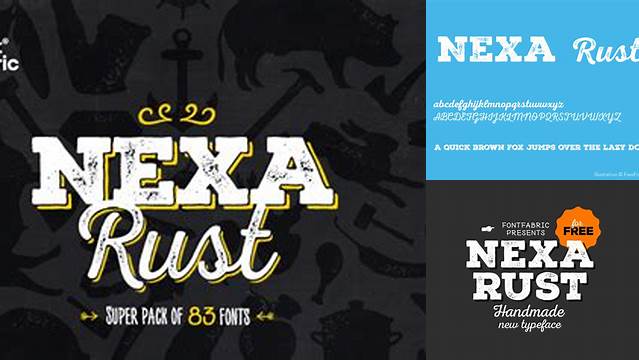
Nexa Rust Script: Free Font Download
Hey guys! Looking for a cool, vintage-style font to spice up your designs? You've come to the right place! Let's dive into the world of Nexa Rust Script, a fantastic font that can give your projects that perfect handcrafted touch. This article will explore everything you need to know about Nexa Rust Script, including where to find it, how to use it, and why it's such a popular choice for designers.
What is Nexa Rust Script?
Nexa Rust Script is more than just a font; it's a whole family of fonts designed to work together seamlessly. It's known for its vintage, handcrafted feel, making it perfect for logos, posters, branding, and a ton of other creative projects. The beauty of Nexa Rust Script lies in its versatility. Whether you're going for a rustic, industrial vibe or a more elegant, vintage look, this font can deliver. It’s a go-to choice for designers who want to add a touch of authenticity and personality to their work. The slightly rough edges and varied letterforms give it a natural, hand-drawn appearance that stands out from the clean, geometric fonts we often see today.
1. Nexa Rust Script: A Detailed Overview
Let's kick things off with a detailed look at Nexa Rust Script. This font family is not just one style; it’s a comprehensive collection that includes various weights and styles, from regular to bold, and even includes some unique extras like shadow and inline versions. This means you have a wide range of options to choose from, allowing you to create diverse designs with a consistent aesthetic. The attention to detail in Nexa Rust Script is what sets it apart. Each letter has been carefully crafted to ensure it fits perfectly within the overall design, and the subtle variations in stroke width and texture add to its handcrafted charm. Whether you're working on a logo, a poster, or a website, Nexa Rust Script can help you achieve a distinctive and memorable look.
3. Using Nexa Rust Script in Graphic Design Projects
So, you've got your hands on Nexa Rust Script – now what? This font is incredibly versatile, making it a great choice for a wide range of graphic design projects. Think logos, branding materials, posters, packaging, and even web design. The key is to use it strategically. For example, Nexa Rust Script can add a touch of vintage charm to a logo, making it stand out from the crowd. In posters, it can create a bold and eye-catching headline. When it comes to branding, using Nexa Rust Script consistently across your materials can help establish a unique and memorable identity. Experiment with different weights and styles within the family to create visual hierarchy and add interest to your designs. Don’t be afraid to pair Nexa Rust Script with other fonts to achieve a balanced and harmonious look. Sans-serif fonts often complement the script style nicely, providing a clean and modern contrast.
4. Nexa Rust Script for Logos and Branding
When it comes to logos and branding, Nexa Rust Script can be a real game-changer. Its unique, handcrafted aesthetic can help your brand stand out and make a lasting impression. Imagine a coffee shop logo with a rustic, vintage feel – Nexa Rust Script would be perfect for this! The font's personality can convey a sense of authenticity and quality, which is crucial for building trust with your audience. In branding materials, Nexa Rust Script can be used for headlines, taglines, and even body text, depending on the overall design. Just be mindful of readability, especially when using it for smaller text sizes. Consider using different weights and styles from the Nexa Rust Script family to create a cohesive and visually appealing brand identity. For instance, you might use the bold version for your logo and the regular version for supporting text. Pairing Nexa Rust Script with a clean, modern sans-serif font can also create a balanced and professional look.
5. Creating Vintage Designs with Nexa Rust Script
If you're aiming for a vintage design, Nexa Rust Script is your new best friend. Its slightly rough edges and textured appearance perfectly capture the essence of vintage typography. Think old-school posters, retro advertisements, and classic signage – Nexa Rust Script fits right in. To enhance the vintage feel, try pairing it with other design elements like distressed textures, muted colors, and vintage illustrations. Experiment with different styles within the Nexa Rust Script family to add depth and variation to your designs. For example, you might use the shadow version to create a 3D effect or the inline version for a more subtle vintage touch. Don’t be afraid to mix and match different styles to achieve the desired look. Remember, the key to a successful vintage design is to create a sense of nostalgia and authenticity, and Nexa Rust Script can help you do just that.
6. Nexa Rust Script: Font Pairing Suggestions
Font pairing can be tricky, but when done right, it can elevate your designs to the next level. With Nexa Rust Script, the key is to find fonts that complement its unique personality without overshadowing it. Generally, clean and simple sans-serif fonts work well with script fonts like Nexa Rust Script. Think fonts like Open Sans, Montserrat, or Lato. These fonts provide a nice contrast and ensure readability, especially in body text. Another approach is to pair Nexa Rust Script with a more traditional serif font for a classic and elegant look. Fonts like Garamond or Times New Roman can create a sophisticated contrast. Experiment with different font weights and sizes to create a visual hierarchy and ensure a balanced design. Remember, the goal is to create a harmonious combination that enhances the overall message and aesthetic of your design. Don’t be afraid to try out different pairings and see what works best for your specific project.
7. Exploring the Nexa Rust Font Family
The Nexa Rust Script font family is a treasure trove of typographic possibilities. It's not just one font; it's a whole collection of styles and weights designed to work together seamlessly. This versatility makes it an excellent choice for projects that require a consistent yet varied aesthetic. Within the family, you'll find regular, bold, and even unique styles like shadow and inline versions. Each style has its own distinct character, allowing you to create diverse designs with a cohesive look. The regular weight is perfect for body text and smaller details, while the bold weight is ideal for headlines and eye-catching elements. The shadow and inline versions can add a touch of flair and visual interest. Take the time to explore the full Nexa Rust Script family and experiment with different combinations to unlock its full potential. Understanding the nuances of each style will help you make informed design choices and create impactful visuals.
8. Nexa Rust Script vs. Other Script Fonts
In the world of script fonts, Nexa Rust Script stands out for its unique blend of vintage charm and modern versatility. But how does it compare to other script fonts out there? Many script fonts lean towards either a formal, elegant style or a playful, casual style. Nexa Rust Script strikes a balance between these two, making it suitable for a wide range of projects. Its slightly rough edges and textured appearance give it a handcrafted feel that sets it apart from smoother, more polished script fonts. Compared to more traditional script fonts, Nexa Rust Script has a contemporary edge, making it a great choice for modern designs with a vintage twist. When choosing a script font, consider the overall tone and message of your project. If you're looking for a font that's both stylish and versatile, Nexa Rust Script is definitely worth considering. Its unique personality and extensive family of styles make it a valuable addition to any designer's toolkit.
9. Designing Posters with Nexa Rust Script
Posters are a fantastic canvas for showcasing the personality of Nexa Rust Script. Its bold and eye-catching nature makes it perfect for creating posters that grab attention and leave a lasting impression. When designing posters with Nexa Rust Script, think about how you can use its unique characteristics to enhance your message. The font's vintage feel can add a touch of nostalgia and authenticity to your design, while its modern edge ensures it doesn't feel outdated. Consider using the bold weight for headlines to make a strong statement, and the regular weight for supporting text to maintain readability. Experiment with different layouts and compositions to create a visually dynamic poster. Don't be afraid to pair Nexa Rust Script with other design elements like illustrations, photos, and textures to create a cohesive and impactful design. Remember, the goal is to create a poster that's both visually appealing and communicates your message effectively, and Nexa Rust Script can help you achieve just that.
10. Nexa Rust Script in Web Design
While script fonts can sometimes be tricky to use in web design due to readability concerns, Nexa Rust Script can be a stylish choice when used strategically. The key is to use it sparingly and in the right contexts. For example, Nexa Rust Script can be a great choice for headings, logos, and other decorative elements that don't require extensive reading. When using it for headings, make sure the font size is large enough to ensure readability. Pair it with a clean and simple sans-serif font for body text to create a balanced and user-friendly design. Consider using different weights and styles from the Nexa Rust Script family to add visual interest and create a clear hierarchy. For instance, you might use the bold version for main headings and the regular version for subheadings. Always test your website on different devices and browsers to ensure the font renders correctly and remains readable. With careful planning and execution, Nexa Rust Script can add a touch of personality and sophistication to your web designs.
11. Licensing Information for Nexa Rust Script
Before you start using Nexa Rust Script in your projects, it's crucial to understand its licensing terms. Font licenses dictate how you can use a font, including whether it's for personal or commercial projects. The complete Nexa Rust Script family is a premium font, which means it typically requires a commercial license for use in for-profit projects. However, there may be free versions or trials available that come with different licensing terms. Always check the specific license agreement for the version you're using to ensure you're complying with the terms. Some licenses may restrict usage to personal projects only, while others may allow commercial use with certain limitations. If you're unsure about the licensing terms, it's always best to contact the font foundry or designer directly for clarification. Using a font without the proper license can lead to legal issues, so it's always better to be safe than sorry. Understanding the licensing information for Nexa Rust Script will help you use it responsibly and confidently in your designs.
12. Nexa Rust Script: Tips for Readability
Readability is key when using any font, and Nexa Rust Script is no exception. While its unique style can add a lot of personality to your designs, it's important to ensure that your text remains easy to read. Here are some tips for improving readability with Nexa Rust Script: Use it sparingly. Avoid using it for large blocks of body text, as this can strain the eyes. Instead, use it for headings, logos, and other decorative elements. Increase the font size. Using a larger font size can make Nexa Rust Script more legible, especially on screens. Adjust the letter spacing and line height. Adding extra space between letters and lines can improve readability and prevent the text from looking cramped. Pair it with a clean sans-serif font. Using a simple sans-serif font for body text can provide a nice contrast and ensure that your overall design is easy to read. Test your designs. Always test your designs on different devices and screens to make sure the text is legible in various contexts. By following these tips, you can use Nexa Rust Script effectively while maintaining readability in your designs.
13. Where to Find Nexa Rust Script Alternatives
While Nexa Rust Script is a fantastic font, it's always good to have options. If you're looking for alternatives, there are plenty of other script fonts out there that offer a similar vintage or handcrafted feel. Some popular alternatives include: Retro Supply Co. fonts, These fonts are known for their authentic vintage aesthetic and come in a variety of styles. Hustle Supply Co. fonts, This foundry offers a range of script fonts with a rustic and industrial vibe. Creative Market script fonts, Creative Market has a vast selection of script fonts from various designers, so you're sure to find something you like. Dafont script fonts, Dafont is a great resource for free fonts, and it has a wide selection of script fonts to choose from. When choosing an alternative, consider the overall style and tone of your project. Think about what characteristics you like about Nexa Rust Script and look for fonts that offer similar qualities. Don't be afraid to experiment with different fonts to find the perfect fit for your design.
14. The Versatility of Nexa Rust Script Styles
One of the things that makes Nexa Rust Script so appealing is its versatility. The font family includes a variety of styles and weights, allowing you to create diverse designs with a consistent aesthetic. From regular to bold, and even unique styles like shadow and inline, Nexa Rust Script offers a wide range of options. The regular style is perfect for body text and smaller details, while the bold style is ideal for headlines and eye-catching elements. The shadow and inline styles can add a touch of flair and visual interest to your designs. Experimenting with different styles within the Nexa Rust Script family can help you create a clear visual hierarchy and add depth to your designs. For example, you might use the bold style for your main headings, the regular style for subheadings, and the inline style for decorative elements. Understanding the nuances of each style will help you make informed design choices and create impactful visuals.
15. Nexa Rust Script in Packaging Design
Packaging design is all about making a product stand out on the shelf, and Nexa Rust Script can help you do just that. Its unique vintage style can add a touch of personality and authenticity to your packaging, making it more appealing to customers. Think about how Nexa Rust Script can complement your product's branding and target audience. For example, if you're designing packaging for a handcrafted or artisanal product, Nexa Rust Script can be a great choice. Its rustic and handcrafted feel will reinforce the product's unique qualities. Consider using different styles and weights from the Nexa Rust Script family to create a visually dynamic package design. You might use the bold style for the product name and the regular style for supporting information. Make sure the font is legible on the packaging material and in different lighting conditions. By using Nexa Rust Script strategically, you can create packaging that not only looks great but also effectively communicates your product's message.
16. Creating a Handcrafted Feel with Nexa Rust Script
The handcrafted aesthetic is a popular trend in design, and Nexa Rust Script is perfectly suited for achieving this look. Its slightly rough edges and textured appearance give it a natural, hand-drawn feel that stands out from the clean, geometric fonts we often see today. To enhance the handcrafted feel, try pairing Nexa Rust Script with other design elements like hand-drawn illustrations, textures, and paper backgrounds. Experiment with different color palettes to create a cohesive and visually appealing design. Muted colors and vintage tones can complement the handcrafted aesthetic nicely. Consider using different styles from the Nexa Rust Script family to add depth and variation to your designs. For example, you might use the shadow version to create a 3D effect or the inline version for a more subtle handcrafted touch. Remember, the goal is to create a design that feels authentic and personal, and Nexa Rust Script can help you achieve just that.
17. Nexa Rust Script and Typography Trends
Typography trends come and go, but some styles have staying power. Nexa Rust Script taps into several popular trends, including the vintage aesthetic, the handcrafted look, and the use of bold, expressive fonts. Its versatility allows it to fit into a variety of design styles, from rustic and industrial to elegant and sophisticated. Staying up-to-date with typography trends can help you make informed design choices and create visuals that resonate with your audience. However, it's also important to choose fonts that align with your brand's personality and message. Nexa Rust Script is a great choice if you're looking for a font that's both on-trend and timeless. Its unique character and extensive family of styles make it a valuable addition to any designer's toolkit. Consider how you can incorporate Nexa Rust Script into your designs to create a modern yet classic look.
18. Designing Social Media Graphics with Nexa Rust Script
Social media is a visual medium, so your graphics need to grab attention and convey your message effectively. Nexa Rust Script can be a great choice for social media graphics, adding a touch of personality and style to your posts. When designing social media graphics with Nexa Rust Script, consider the platform's design guidelines and best practices. Use a font size that's legible on different devices and screen sizes. Pair Nexa Rust Script with a clean sans-serif font for body text to ensure readability. Experiment with different styles and weights from the Nexa Rust Script family to create a visually dynamic design. Use bold colors and eye-catching imagery to complement the font's unique character. Remember, your social media graphics should be consistent with your brand's overall visual identity, and Nexa Rust Script can help you achieve that. Consider using Nexa Rust Script for headlines, captions, and other text elements to create a cohesive and engaging social media presence.
19. Nexa Rust Script for Print Materials
Nexa Rust Script is not just for digital designs; it also works beautifully in print materials. Its unique character and versatility make it a great choice for brochures, business cards, posters, and more. When using Nexa Rust Script in print, consider the printing process and paper stock. Choose a font size that's legible in print and adjust the letter spacing and line height as needed. Pair Nexa Rust Script with a clean sans-serif font for body text to ensure readability. Experiment with different styles and weights from the Nexa Rust Script family to create a visually dynamic design. Use high-resolution images and graphics to complement the font's unique character. Remember, your print materials should reflect your brand's overall visual identity, and Nexa Rust Script can help you achieve that. Consider using Nexa Rust Script for headings, logos, and other text elements to create a cohesive and professional look.
20. Nexa Rust Script and Color Palettes
Color is a powerful tool in design, and the right color palette can enhance the impact of Nexa Rust Script. When choosing colors to pair with Nexa Rust Script, consider the overall tone and message of your design. Vintage designs often use muted colors and earth tones, while modern designs may incorporate bolder, more vibrant colors. Nexa Rust Script can work well with a variety of color palettes, depending on the desired effect. For a vintage look, try pairing it with colors like cream, beige, and brown. For a more modern look, consider using bolder colors like navy, forest green, or even a bright red or yellow. Experiment with different color combinations to find what works best for your specific project. Remember, the goal is to create a color palette that complements the font's unique character and helps convey your message effectively. Consider using color to highlight specific text elements or create a visual hierarchy within your design.
21. The Impact of Font Choice: Nexa Rust Script Example
The font you choose can have a significant impact on the overall look and feel of your design. Nexa Rust Script, with its vintage and handcrafted aesthetic, can instantly transform a design from generic to unique and memorable. Imagine a logo designed with a clean, geometric sans-serif font versus the same logo designed with Nexa Rust Script. The sans-serif font might convey a sense of modernity and efficiency, while Nexa Rust Script adds a touch of personality and authenticity. The choice of font can influence how your audience perceives your brand or message. Nexa Rust Script is particularly effective for brands that want to project a sense of craftsmanship, quality, and history. By understanding the impact of font choice, you can make informed decisions that align with your design goals and brand identity. Consider how Nexa Rust Script can help you create a distinctive and impactful visual presence.
22. Nexa Rust Script: Free vs. Paid Versions
Like many fonts, Nexa Rust Script is available in both free and paid versions. The free versions typically offer a limited selection of styles and characters, while the paid versions include the full font family and often additional features. When deciding between a free and paid version, consider your project's needs and budget. If you're working on a personal project or simply want to experiment with the font, a free version may be sufficient. However, if you're using Nexa Rust Script for commercial purposes, it's essential to have the appropriate license. Paid versions of Nexa Rust Script typically come with a commercial license, allowing you to use the font in your business projects without legal issues. Additionally, the full font family provides more flexibility and options, allowing you to create a wider range of designs. Weigh the pros and cons of each option before making a decision. Remember, investing in a high-quality font like Nexa Rust Script can enhance your designs and elevate your brand's visual identity.
23. Nexa Rust Script in Motion Graphics
Motion graphics are a dynamic and engaging way to communicate your message, and Nexa Rust Script can add a touch of personality and style to your animations. When using Nexa Rust Script in motion graphics, consider how the font's unique character can complement your visuals. Its vintage and handcrafted feel can create a sense of nostalgia or authenticity, while its bold and expressive letterforms can grab attention. Experiment with different animation techniques to bring Nexa Rust Script to life. Consider using kinetic typography to animate the text and create a visually dynamic composition. Pair Nexa Rust Script with other design elements like illustrations, icons, and textures to create a cohesive and engaging animation. Make sure the font is legible and easy to read, even when in motion. Use animation to emphasize key words or phrases and create a visual hierarchy. By using Nexa Rust Script effectively in motion graphics, you can create videos that capture your audience's attention and leave a lasting impression.
24. Nexa Rust Script and Brand Personality
Your brand's personality is the human-like characteristics that define it, and your font choice plays a crucial role in conveying that personality. Nexa Rust Script, with its vintage and handcrafted aesthetic, can communicate a sense of authenticity, craftsmanship, and history. It's a great choice for brands that want to project a warm, welcoming, and slightly nostalgic image. Consider your brand's target audience and what qualities they value. If you're targeting a younger audience, Nexa Rust Script can add a touch of cool and retro style. If you're targeting a more mature audience, it can evoke a sense of nostalgia and quality. Think about how Nexa Rust Script can complement your brand's overall message and values. It's important to choose a font that aligns with your brand's personality and helps you connect with your audience on an emotional level. By using Nexa Rust Script strategically, you can create a brand identity that's both visually appealing and emotionally resonant.
25. Nexa Rust Script: Common Design Mistakes to Avoid
While Nexa Rust Script is a versatile and stylish font, it's important to use it correctly to avoid common design mistakes. One of the biggest mistakes is overusing the font. Nexa Rust Script is best used sparingly, as too much of it can make a design look cluttered and overwhelming. Avoid using it for large blocks of body text, as its unique character can make it difficult to read. Another mistake is pairing Nexa Rust Script with fonts that clash with its style. It's generally best to pair it with clean and simple sans-serif fonts that provide a nice contrast. Using too many different fonts in a single design can also create a chaotic and unprofessional look. Make sure the font size is appropriate for the context. Nexa Rust Script may need to be larger than other fonts to maintain readability. By avoiding these common mistakes, you can use Nexa Rust Script effectively and create designs that are both visually appealing and easy to read.
26. Exploring Nexa Rust Script Variations
One of the great things about Nexa Rust Script is that it comes in a variety of variations, each with its own unique character. This allows you to create diverse designs with a consistent aesthetic. The Nexa Rust Script family includes regular, bold, and unique styles like shadow and inline versions. The regular style is perfect for body text and smaller details, while the bold style is ideal for headlines and eye-catching elements. The shadow version can add a 3D effect, while the inline version creates a more subtle vintage touch. Experimenting with different variations can help you create a visual hierarchy and add depth to your designs. Consider using different variations for different text elements, such as headings, subheadings, and body text. Understanding the nuances of each variation will help you make informed design choices and create impactful visuals. By exploring the Nexa Rust Script variations, you can unlock its full potential and create truly unique designs.
27. Nexa Rust Script and Kerning Considerations
Kerning, the spacing between individual letters, is an essential aspect of typography that can significantly impact readability and visual appeal. With script fonts like Nexa Rust Script, kerning is particularly important due to the flowing and connected nature of the letterforms. Poor kerning can make the text look uneven and difficult to read, while proper kerning creates a more polished and professional look. When using Nexa Rust Script, pay close attention to the kerning, especially in headings and logos. Adjust the spacing between letters as needed to ensure a harmonious and balanced appearance. Some font software programs offer automatic kerning features, but it's always a good idea to manually adjust the kerning to achieve the best results. Consider the overall context and size of the text when adjusting the kerning. Smaller text may require tighter kerning, while larger text may benefit from more generous spacing. By paying attention to kerning, you can enhance the readability and visual impact of Nexa Rust Script in your designs.
28. Using Nexa Rust Script for Digital Advertising
Digital advertising is a competitive landscape, so your ads need to grab attention and convey your message quickly and effectively. Nexa Rust Script can be a great choice for digital advertising, adding a touch of personality and style to your ads. When using Nexa Rust Script in digital ads, consider the platform's design guidelines and best practices. Use a font size that's legible on different devices and screen sizes. Pair Nexa Rust Script with a clean sans-serif font for body text to ensure readability. Experiment with different styles and weights from the Nexa Rust Script family to create a visually dynamic design. Use bold colors and eye-catching imagery to complement the font's unique character. Keep your message concise and focused. Digital ads have limited space, so it's important to communicate your key message clearly and effectively. Test different ad variations to see what performs best with your target audience. By using Nexa Rust Script strategically in digital advertising, you can create ads that stand out and drive results.
29. Nexa Rust Script in Editorial Design
Editorial design, which includes magazines, newspapers, and books, requires a careful balance of aesthetics and readability. Nexa Rust Script can be used effectively in editorial design, but it's important to use it judiciously and in the right contexts. Consider using Nexa Rust Script for headings, titles, and other decorative elements, but avoid using it for large blocks of body text. Pair it with a clean and legible serif or sans-serif font for the main body text. This will ensure that your publication is both visually appealing and easy to read. Use different styles and weights from the Nexa Rust Script family to create a visual hierarchy and add interest to the design. Think about the overall tone and message of the publication when choosing fonts and design elements. Nexa Rust Script can be particularly effective for publications that want to convey a sense of craftsmanship, authenticity, or vintage style. By using Nexa Rust Script thoughtfully in editorial design, you can create publications that are both beautiful and engaging.
30. Nexa Rust Script: Future Trends and Predictions
As design trends evolve, so does the use of fonts like Nexa Rust Script. While its vintage and handcrafted aesthetic has been popular for some time, it's likely to continue to be relevant in the future. However, the way it's used may change. We may see Nexa Rust Script paired with more modern and minimalist design elements to create a unique and contemporary look. It's also possible that we'll see new variations and interpretations of Nexa Rust Script emerge, reflecting the changing tastes of designers and audiences. Staying up-to-date with design trends can help you anticipate how fonts like Nexa Rust Script will be used in the future. Consider how you can incorporate Nexa Rust Script into your designs in innovative and unexpected ways. By experimenting with new combinations and techniques, you can create visuals that are both timeless and cutting-edge. The future of Nexa Rust Script is likely to be dynamic and exciting, so it's worth keeping an eye on how it evolves and adapts to the changing design landscape.